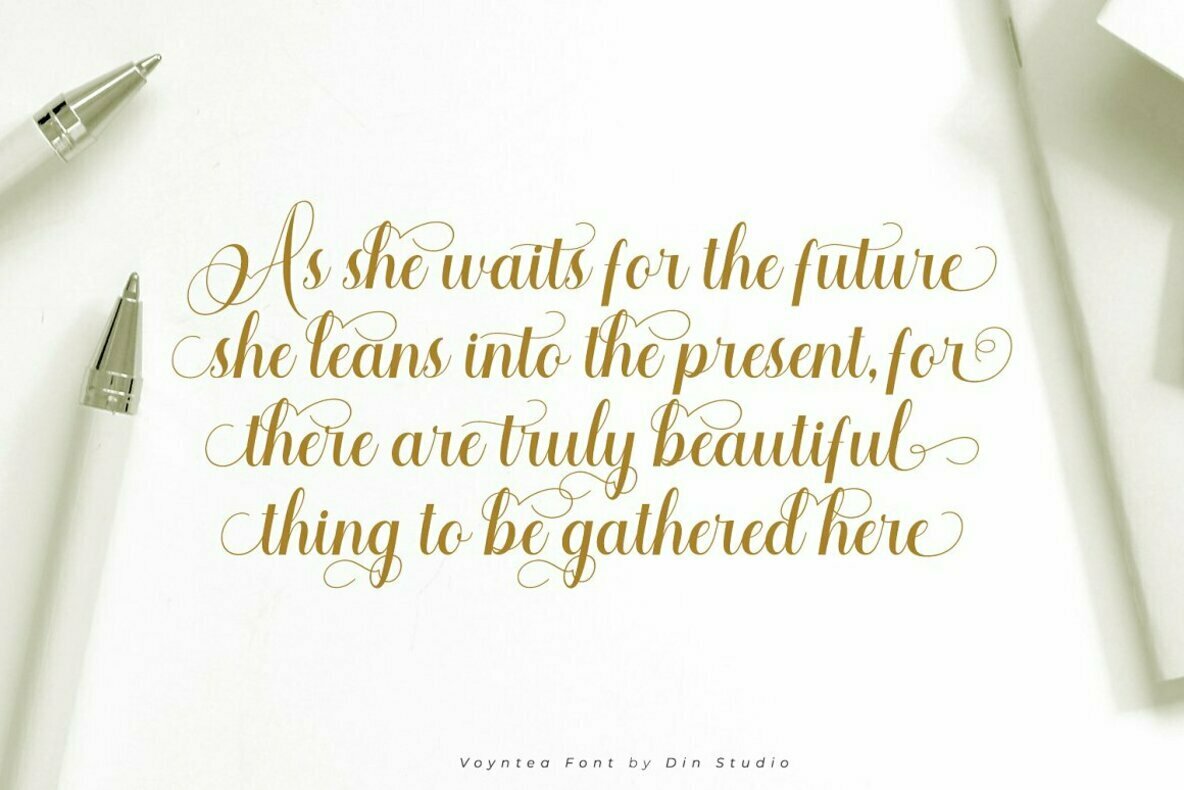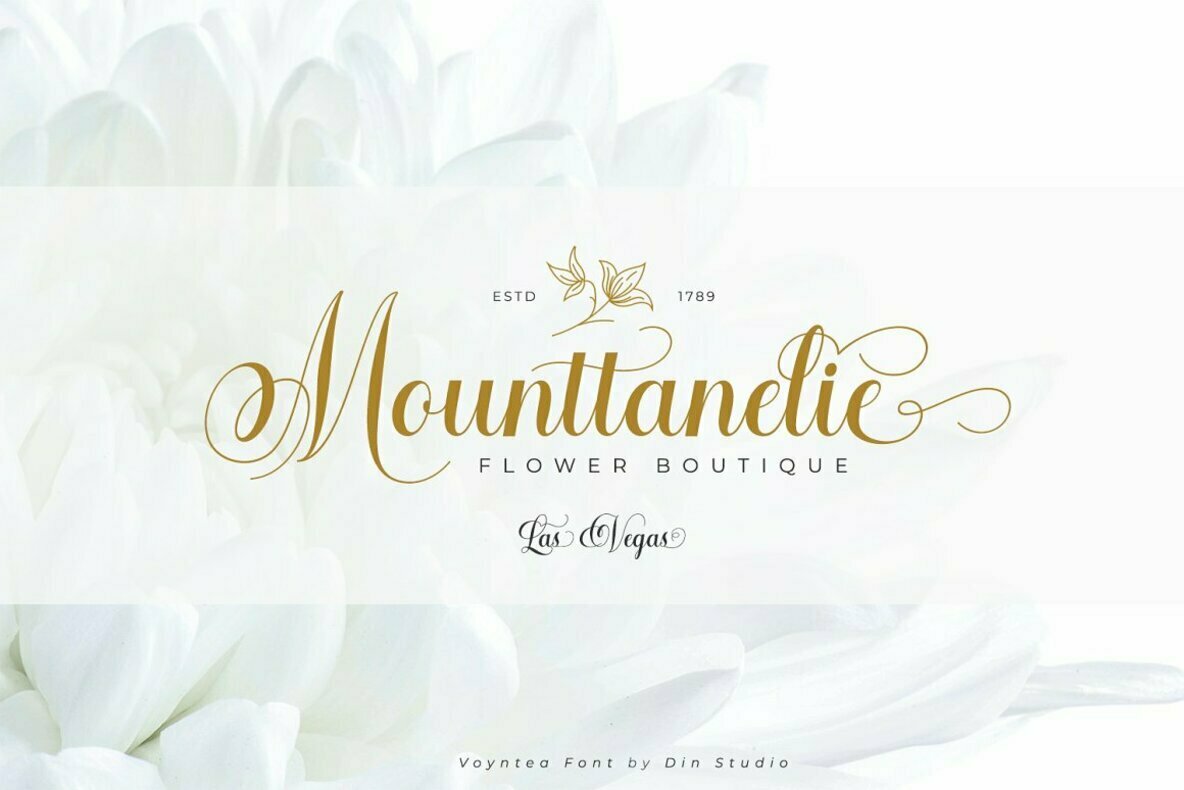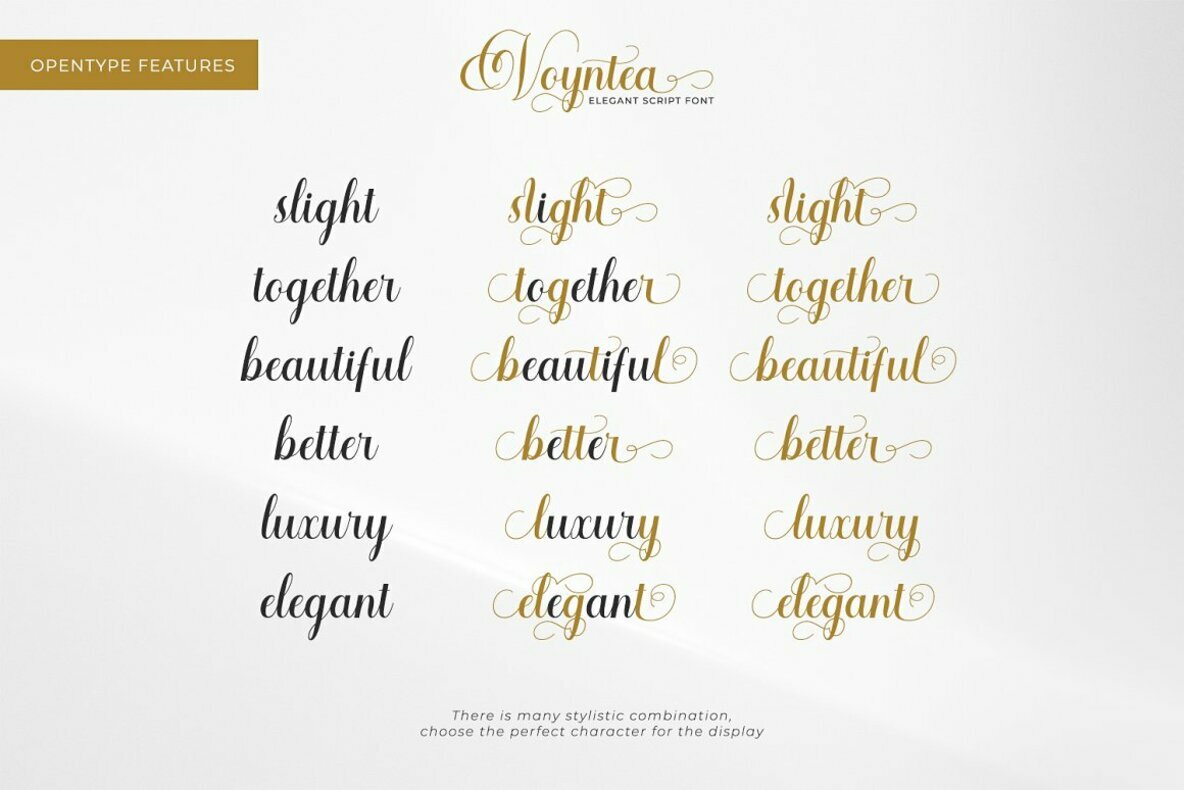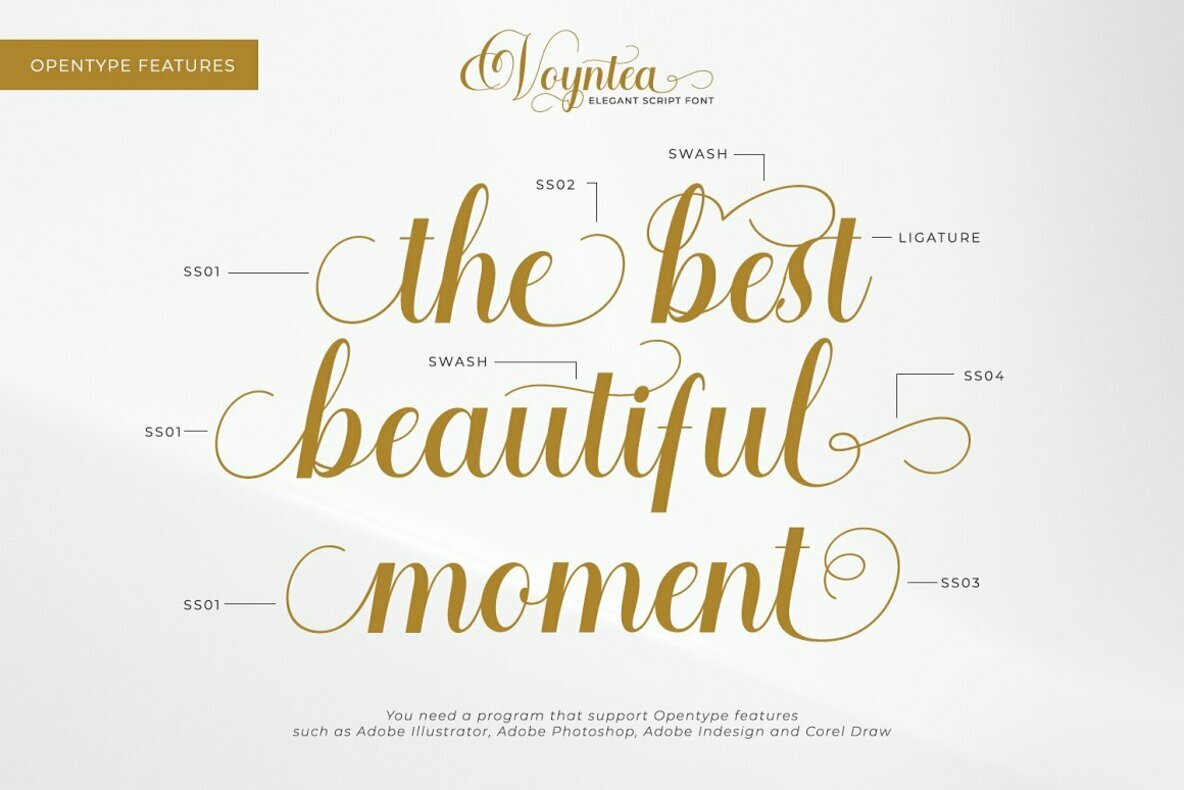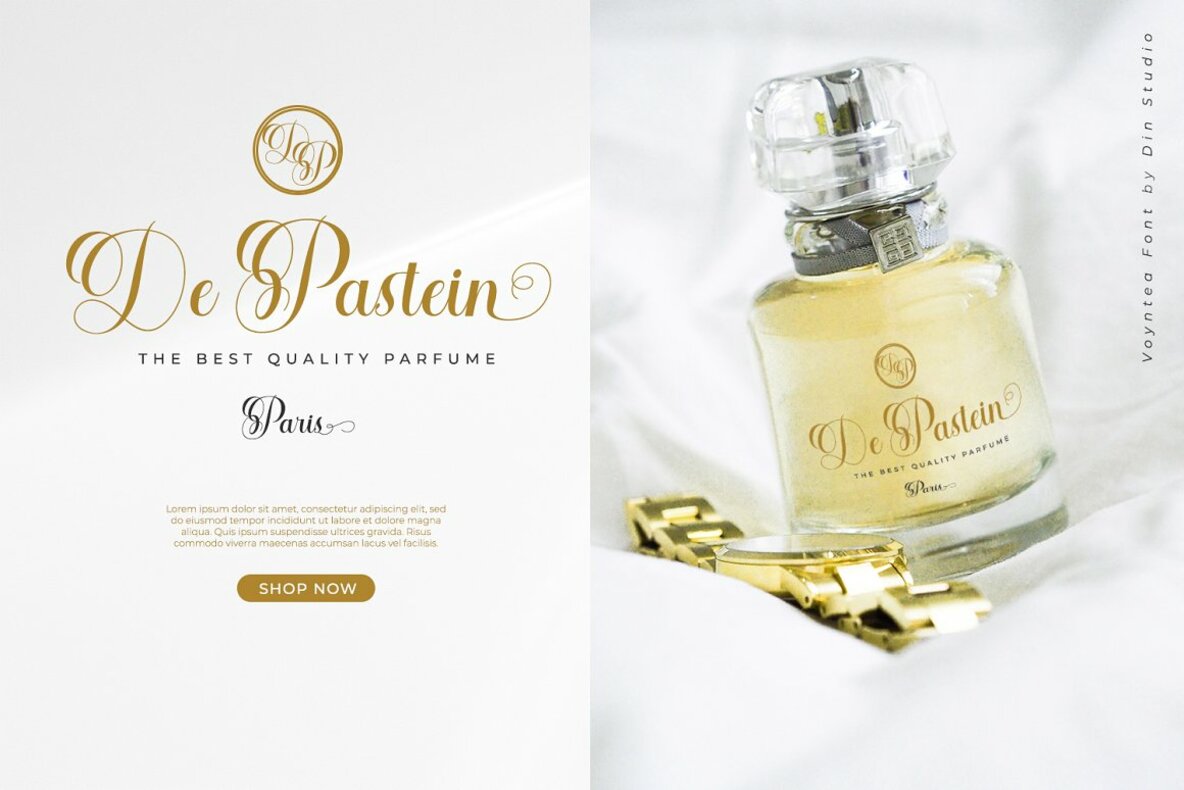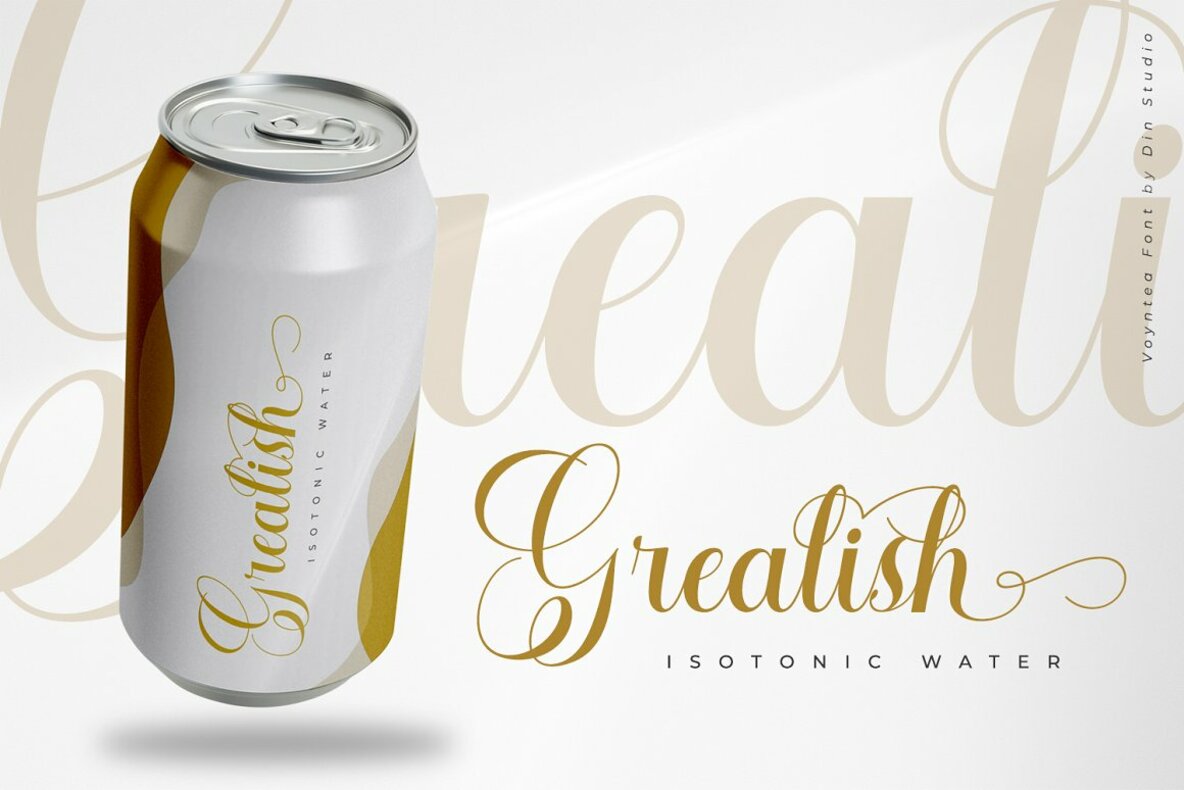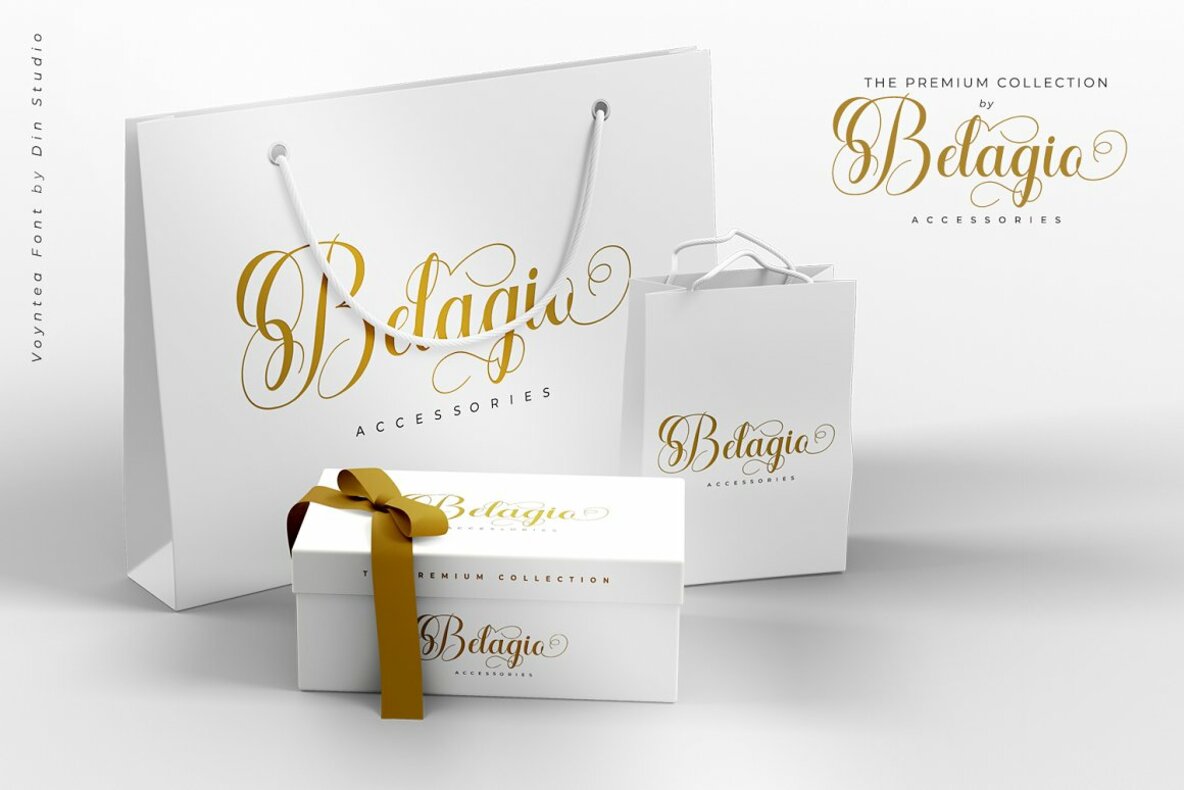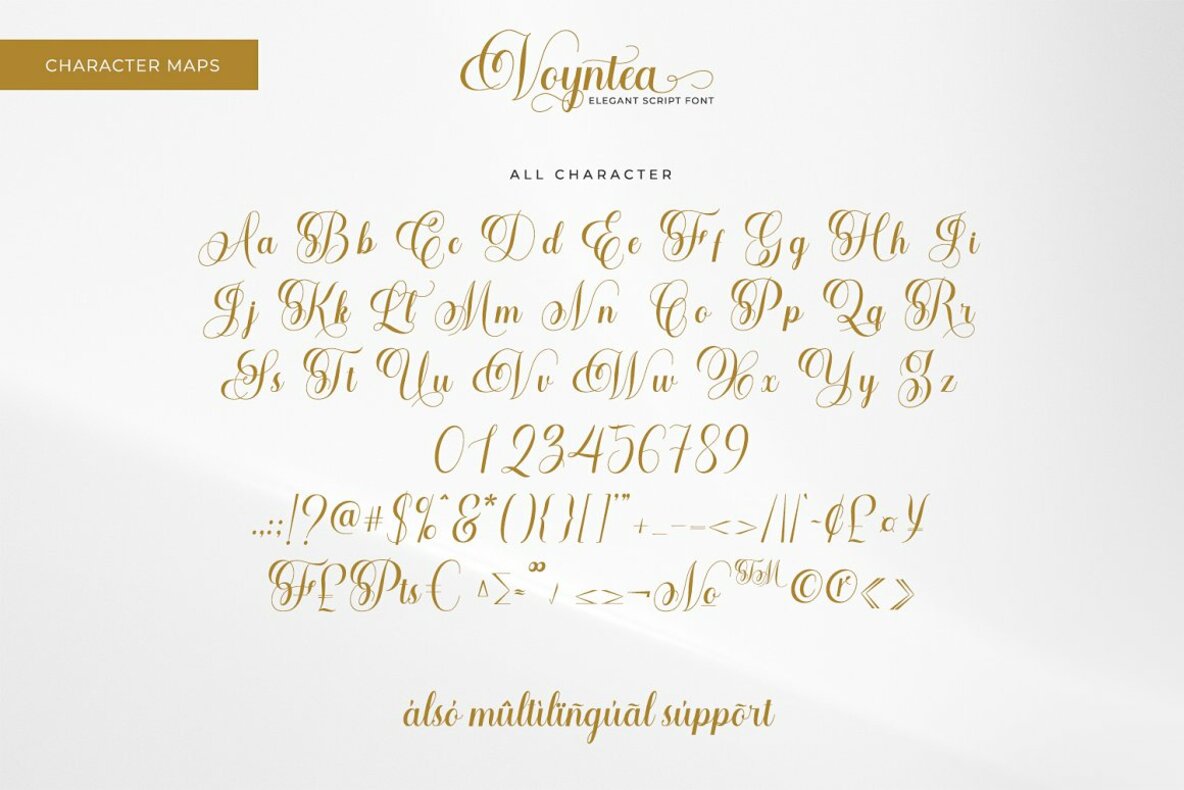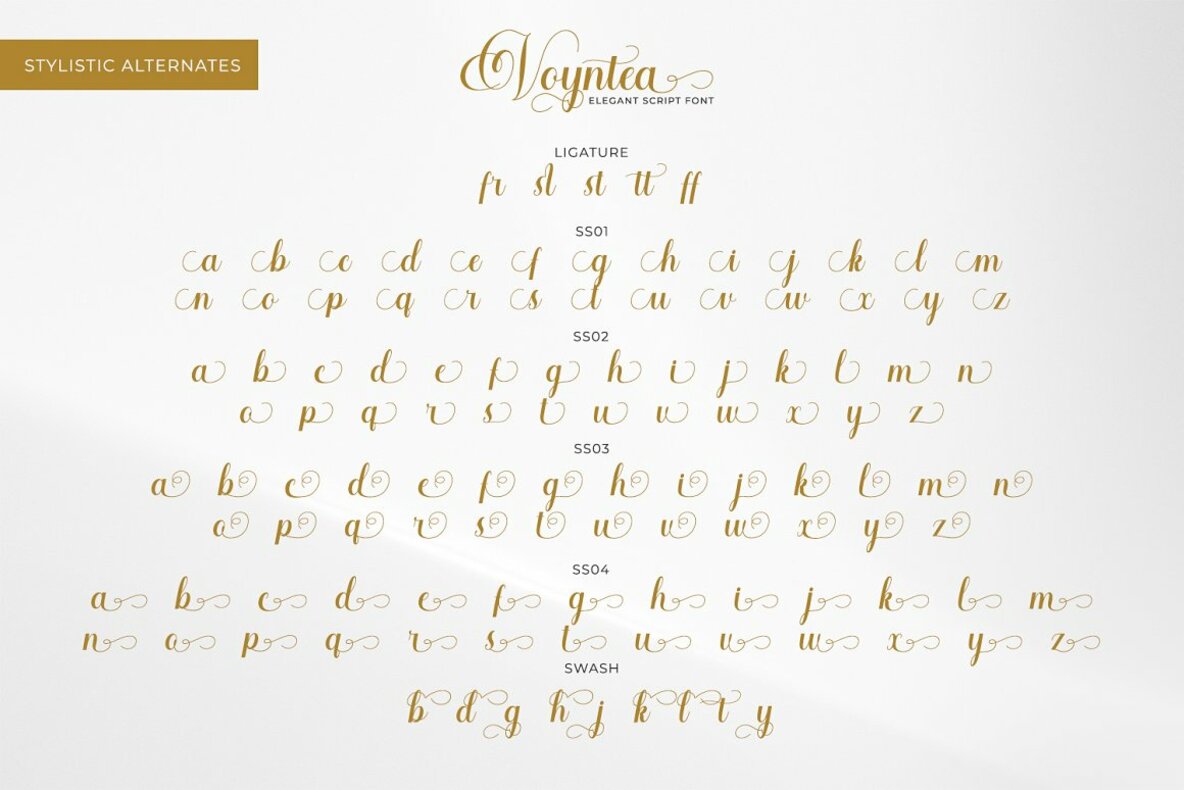
Voyntea Font
Voyntea
Voyntea exudes the charm and sophistication of classic calligraphy while remaining unmistakably modern. Designed with a natural, handwritten flair, it serves as a stunning addition to any professional branding endeavor. This versatile typeface is particularly well-suited for logos, wedding invitations, and inspirational quotes.Voyntea: Elegantly Handcrafted Calligraphy